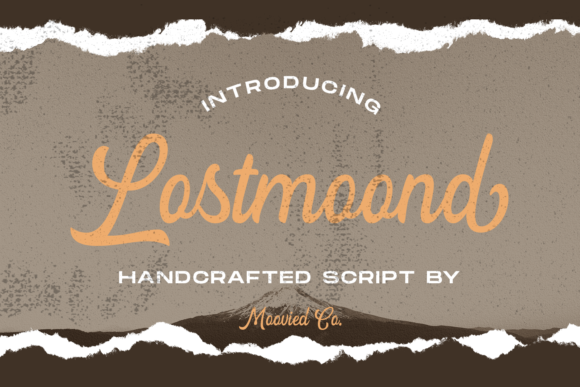
Introducing Lostmoond Font - The Perfect Touch of Elegance for Your Creative Endeavors
In a world where words dance and emotions flow, the Lostmoond Font emerges as a symphony of style and grace, ready to transform your creative visions into masterpieces. Crafted with meticulous attention to detail by the renowned TempCraft, Lostmoond Font is a modern signature font that captures the essence of handwritten elegance, inviting you to embark on an artistic journey like no other.
With its authentic feel and undeniable charm, Lostmoond Font is the perfect choice for those who seek to add a touch of sophistication and personality to their creative projects. Whether you're designing wedding invitations that exude romance, creating beautiful stationary art that speaks to the heart, crafting eye-catching social media posts that demand attention, or simply sending cute greeting cards that spread joy, Lostmoond Font will elevate your words and make them shine.
As you delve into the depths of Lostmoond Font's versatile character set, you'll discover a symphony of swashes, ligatures, and alternates that dance together in perfect harmony. Each letterform is meticulously crafted to evoke a sense of authenticity and charm, ensuring that your creations radiate with a touch of timeless elegance.
Gone are the days of settling for ordinary fonts that blend into the background. With Lostmoond Font at your fingertips, you have the power to unleash your creativity and make a statement that resonates with your audience. Let your words flow effortlessly through the curves and flourishes of Lostmoond Font, creating a visual masterpiece that captivates and inspires.
So, embark on this creative journey with Lostmoond Font today, and let your imagination soar to new heights. Experience the joy of crafting designs that speak to the soul, leaving an everlasting impression on all who behold them. Embrace the allure of Lostmoond Font and unlock the potential of your creativity.